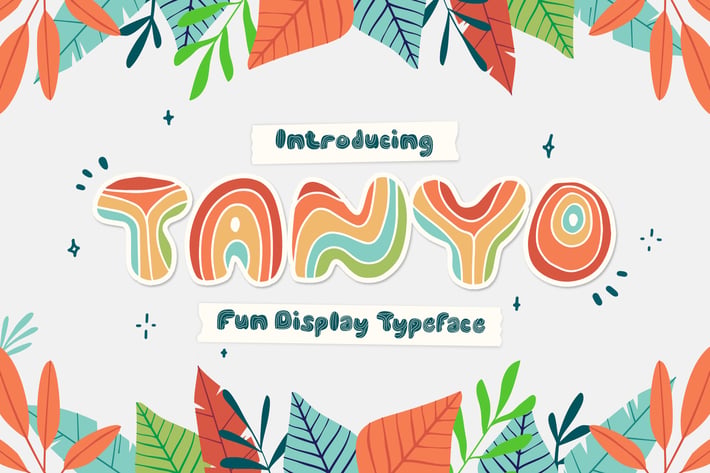
Tanyo Typeface
Modern Serif font with alternate and unique style, a display font in a playful and handwritten style that makes your designs unique and distinctive.